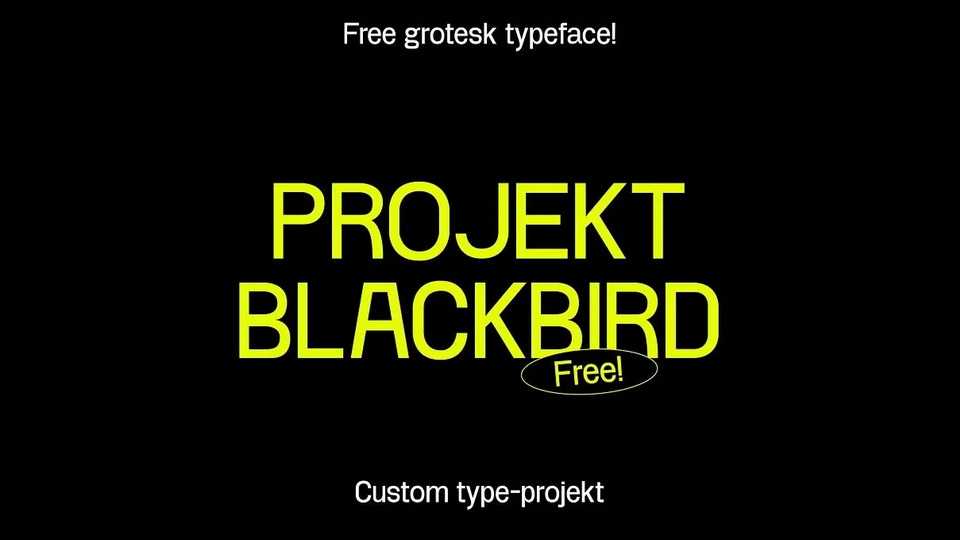
Download Projekt Blackbird font, a custom grotesque typeface done as an in-house project for Blackbird Marketing, a creative agency based in Kosovo.
Designer: Leonit Gashi